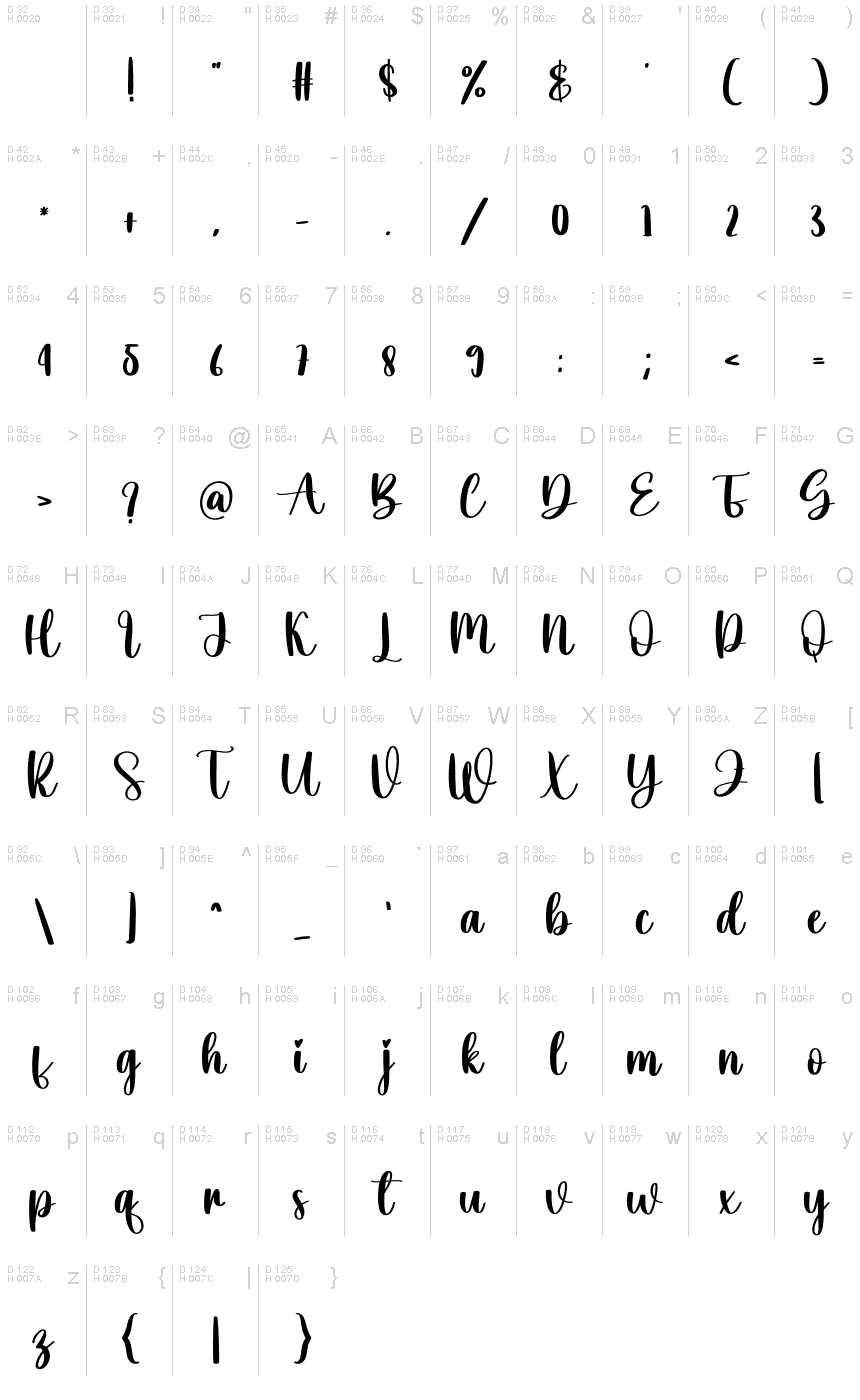
Onegreen
Onegreen, a creation by Scratchones, stands out with its semi-bold, handwritten style that brings an authentic touch of personal flair to any project. Crafted with a delicate balance between casual spontaneity and structured elegance, Onegreen exudes a warm and inviting aesthetic that resonates with audiences seeking a human touch in digital spaces.
The semi-bold weight of Onegreen ensures that its presence is felt without overwhelming the senses, striking the perfect chord for projects that require both personality and readability. Its flowing curves and slight slant capture the essence of handcrafted artistry while maintaining clarity and legibility.
Perfect for branding, social media graphics, invitations or any design endeavor that benefits from an approachable yet sophisticated vibe, Onegreen's versatility allows it to adapt seamlessly across various contexts. Whether you're crafting heartfelt messages or setting the tone for an artisanal brand identity, let Onegreen infuse your work with its distinct character and charm.
The semi-bold weight of Onegreen ensures that its presence is felt without overwhelming the senses, striking the perfect chord for projects that require both personality and readability. Its flowing curves and slight slant capture the essence of handcrafted artistry while maintaining clarity and legibility.
Perfect for branding, social media graphics, invitations or any design endeavor that benefits from an approachable yet sophisticated vibe, Onegreen's versatility allows it to adapt seamlessly across various contexts. Whether you're crafting heartfelt messages or setting the tone for an artisanal brand identity, let Onegreen infuse your work with its distinct character and charm.